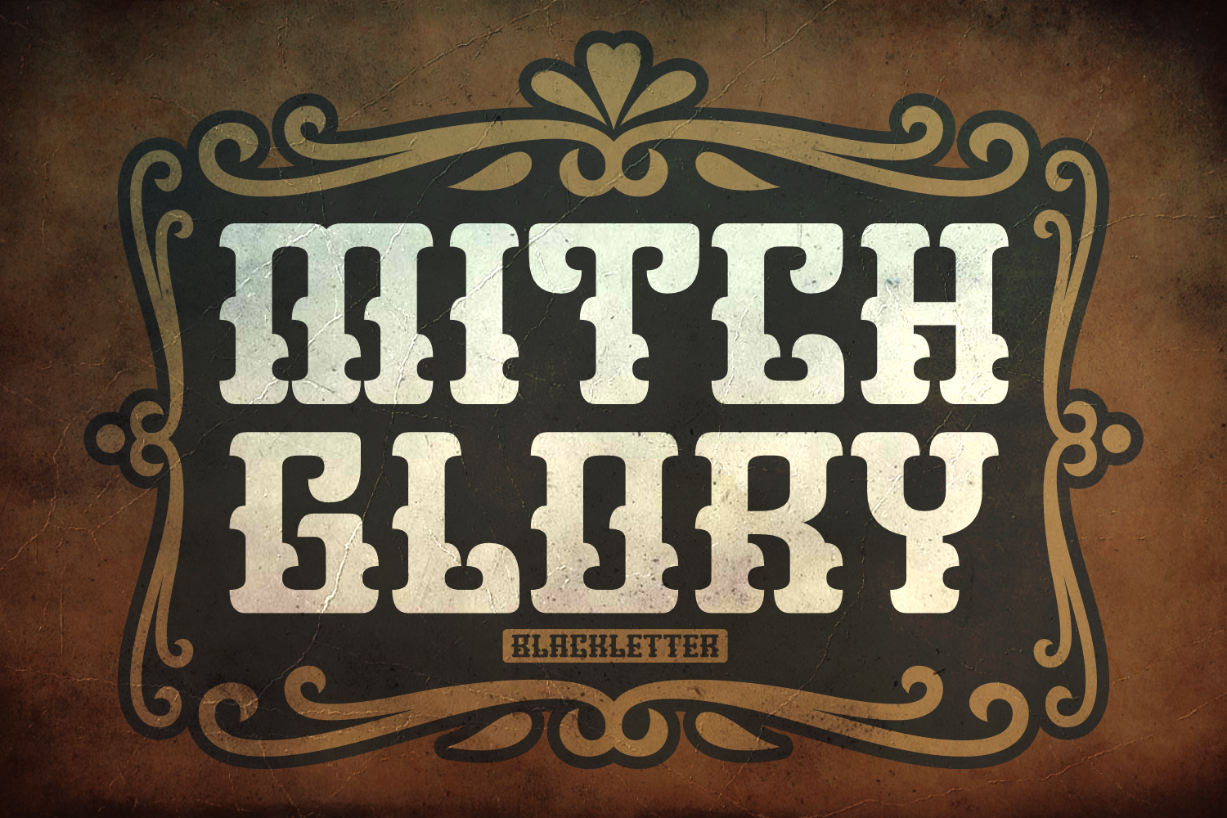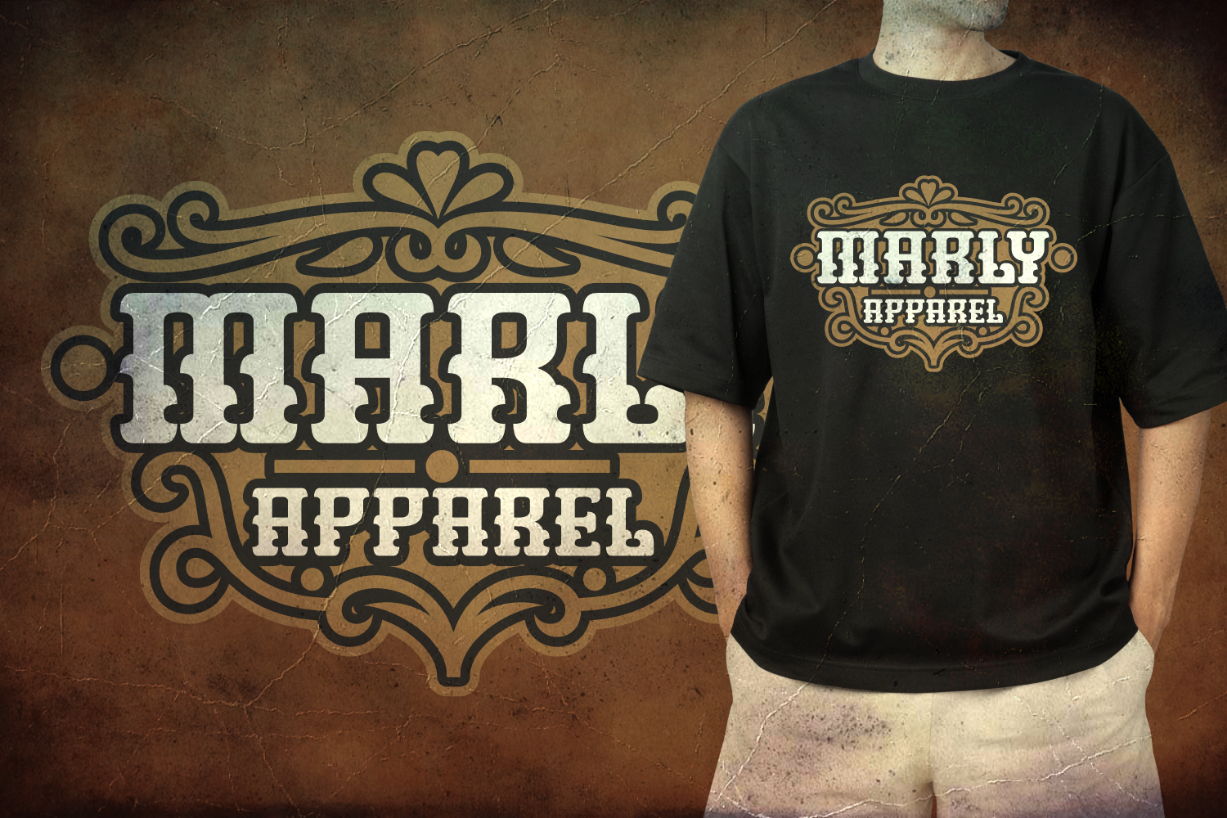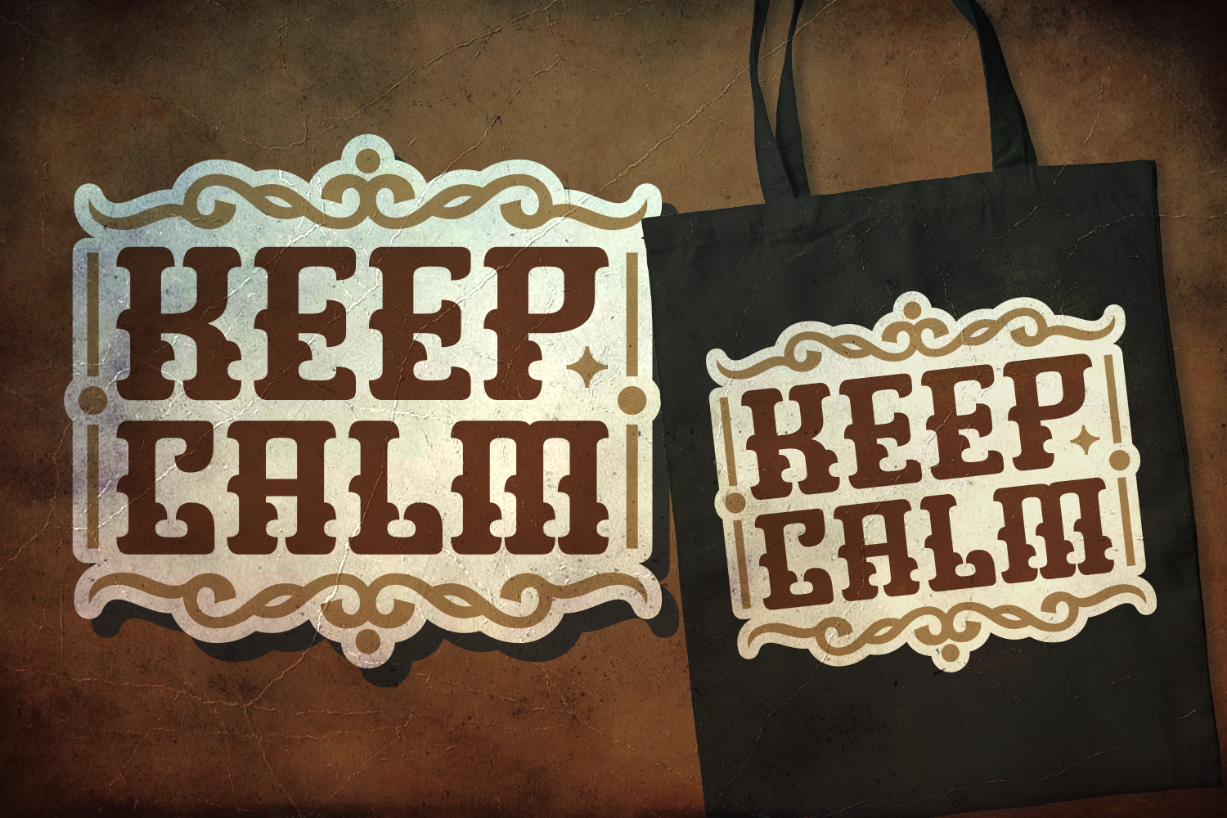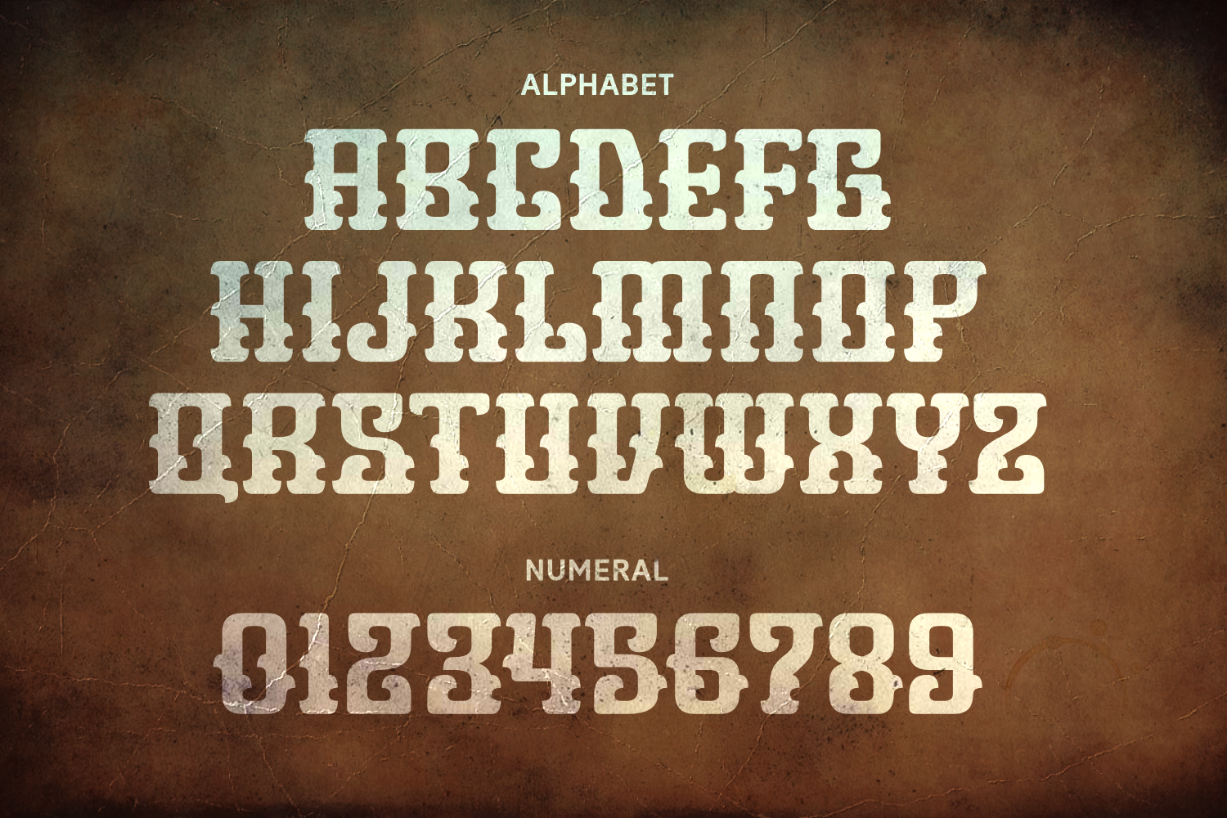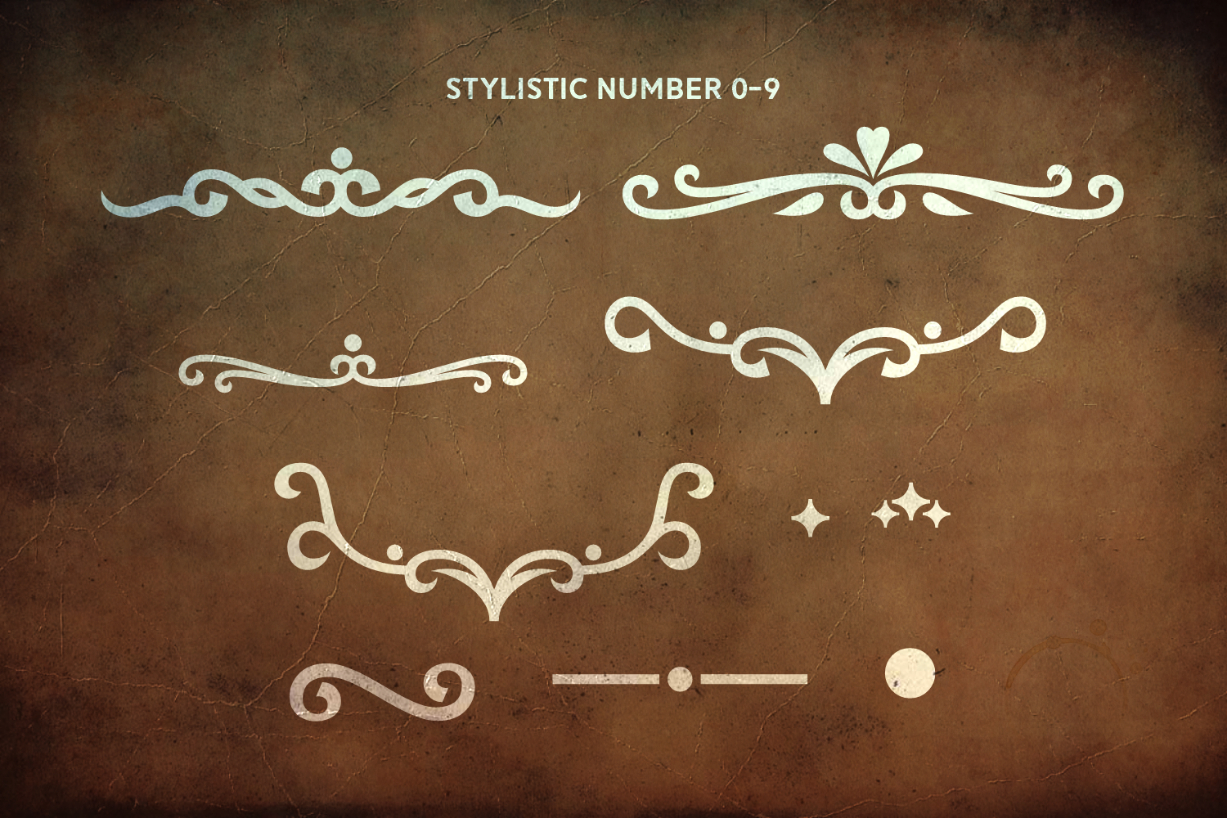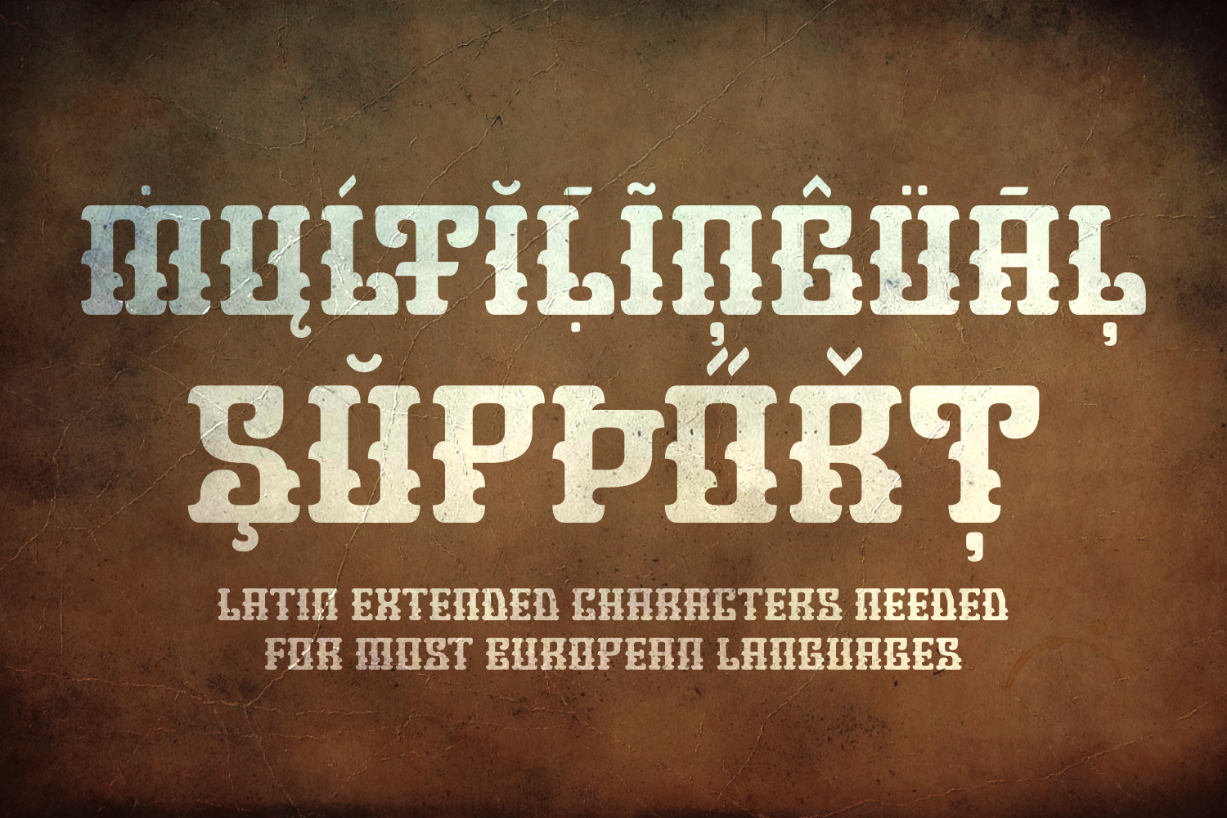
Mitch Glory Font
About Mitch Glory Font
Mitch Glory is a thick and stunning blackletter font. Create beautiful and impressive typography with this uniquely stylized set of characters! This vintage-style typeface comes with elegant PUA-encoded flourishes and embellishments. Try it out in your next creative project!